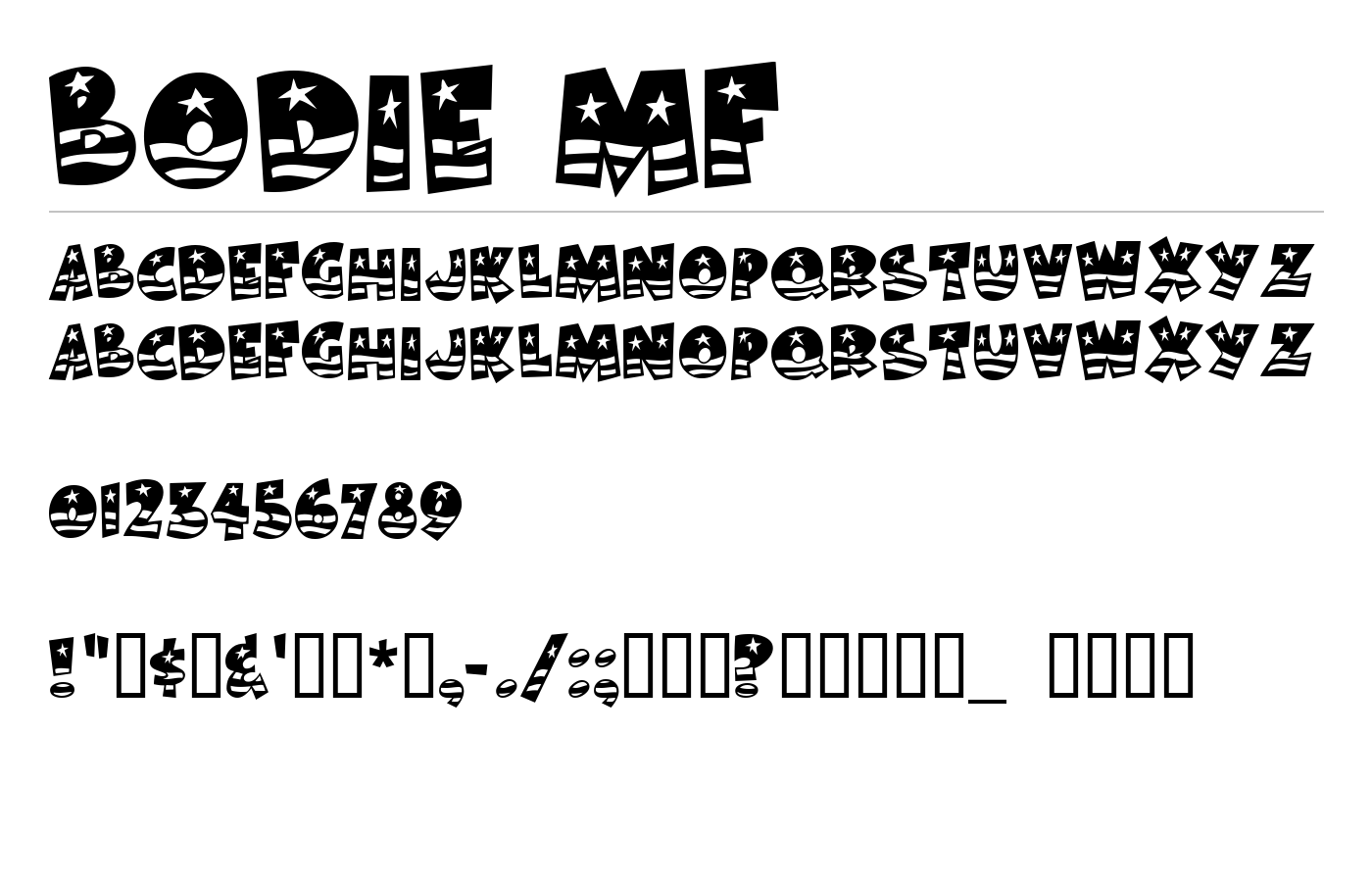
Bodie MF is a bold, playful display font with a quirky, hand-drawn style featuring stars and stripes inside its chunky, irregular letterforms. Its lively and decorative design makes it perfect for fun, energetic branding, posters, or headlines where a strong, eye-catching personality is needed. This font works best in creative, informal contexts that want to convey a sense of whimsy and individuality.
Bodie MF Font
About Bodie MF Font